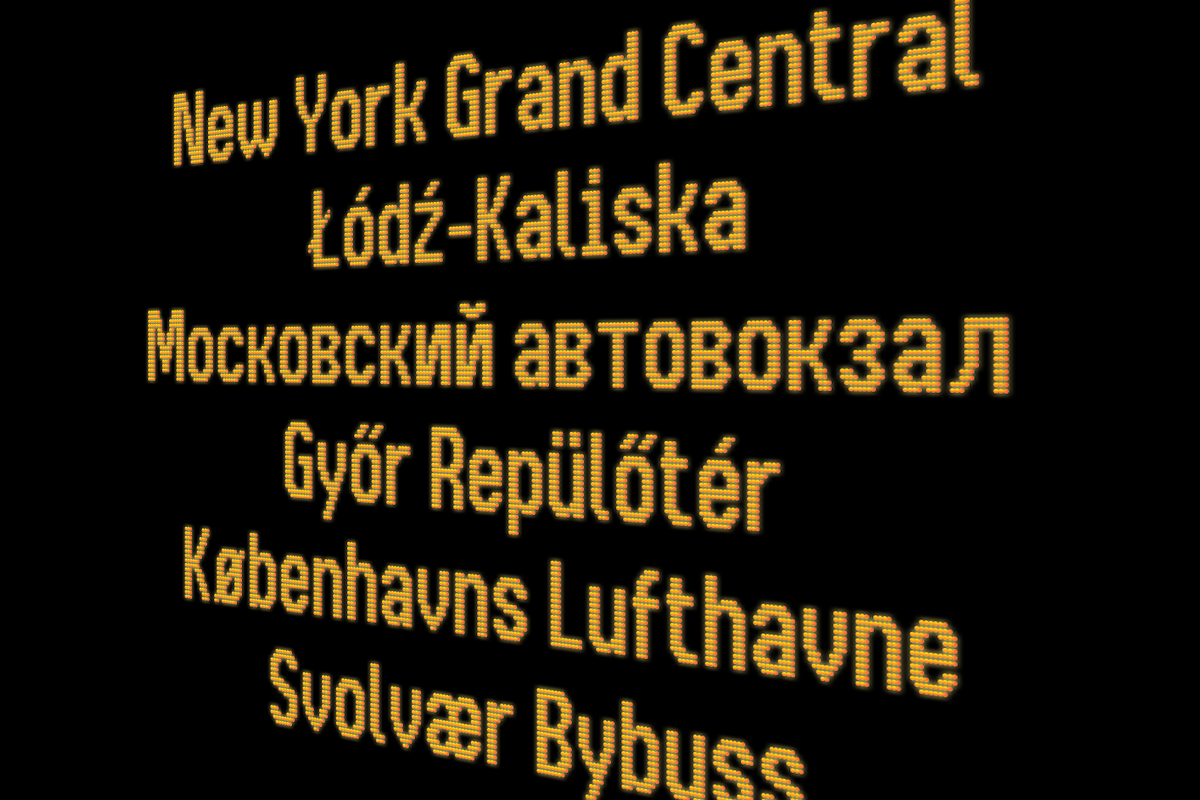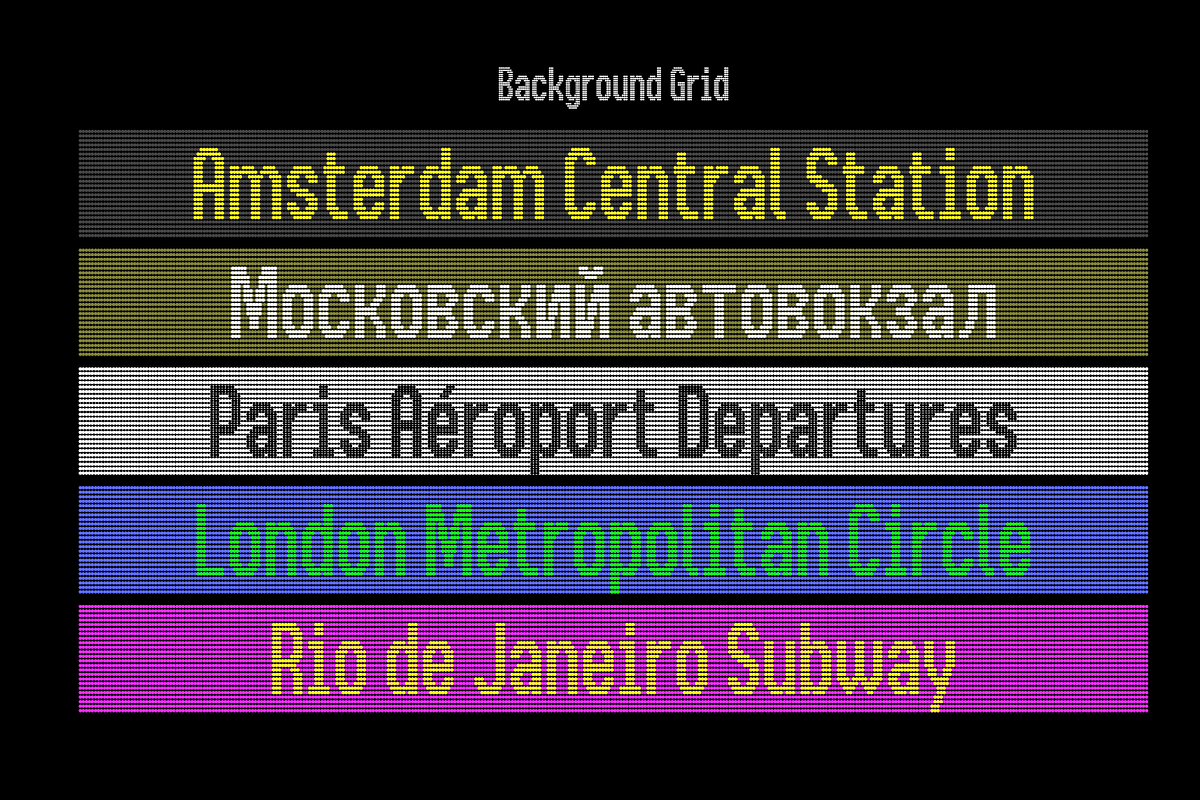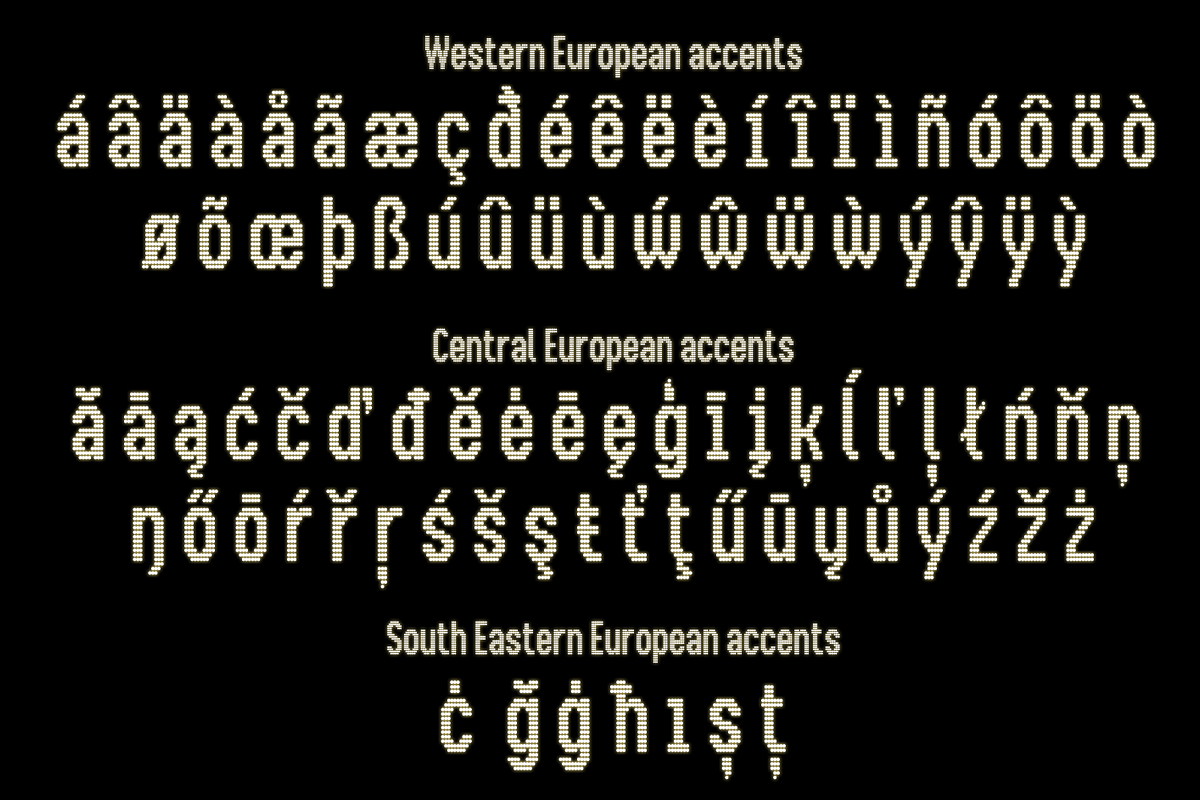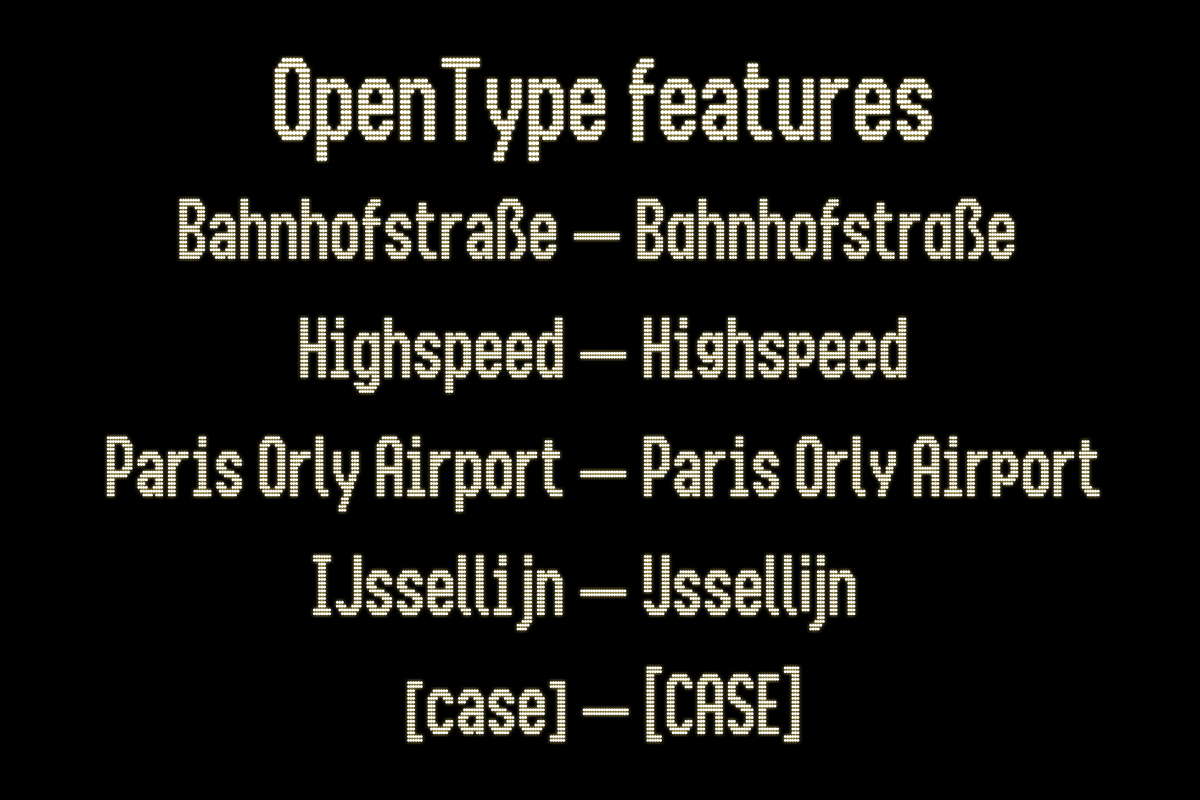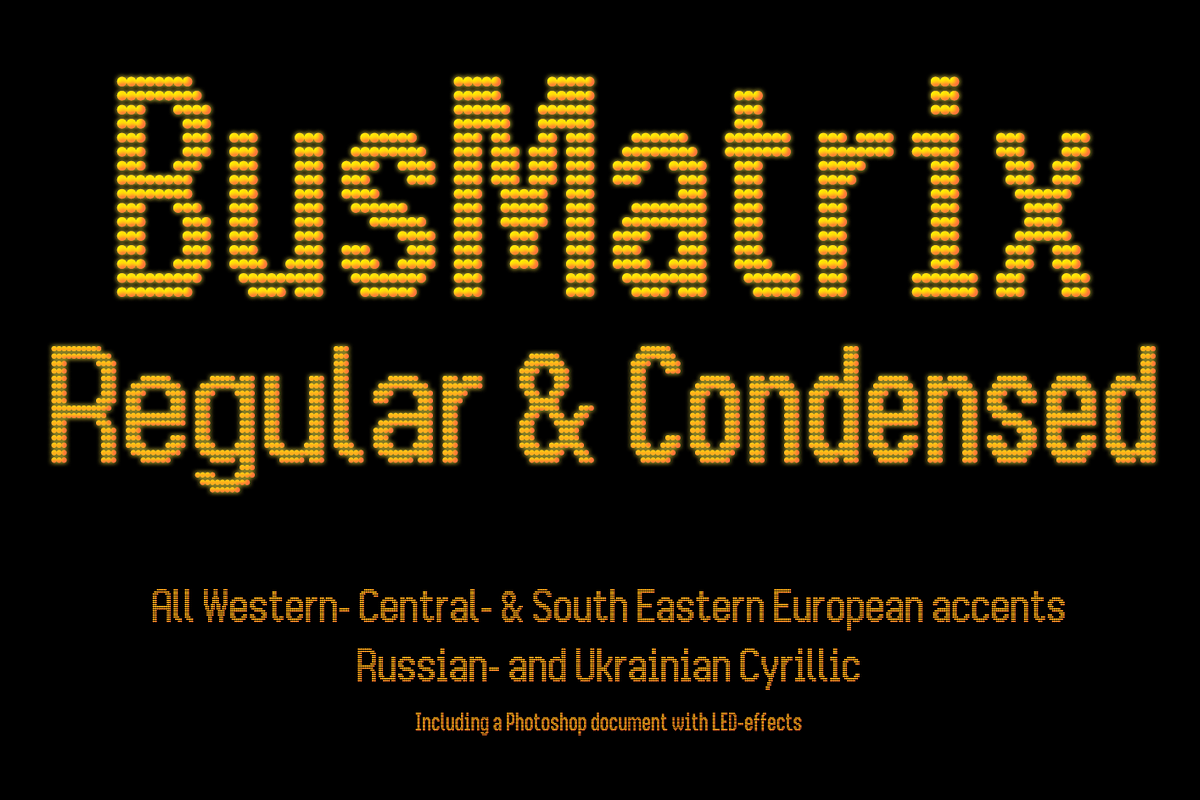
BusMatrix | dot matrix font
BusMatrix Regular & Condensed: a LED matrix font, inspired by public transport typography.
All Western- Central- & South Eastern European accents